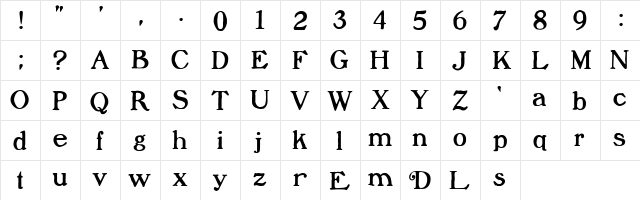
Lachesis Regular
Design Context for Lachesis Typeface
Lachesis takes a measured approach to typography — its balanced proportions and neutral character make it a reliable workhorse for both digital and print work.
Pro Tip: Use Lachesis in both headline and body roles to test its range before committing to a single application.